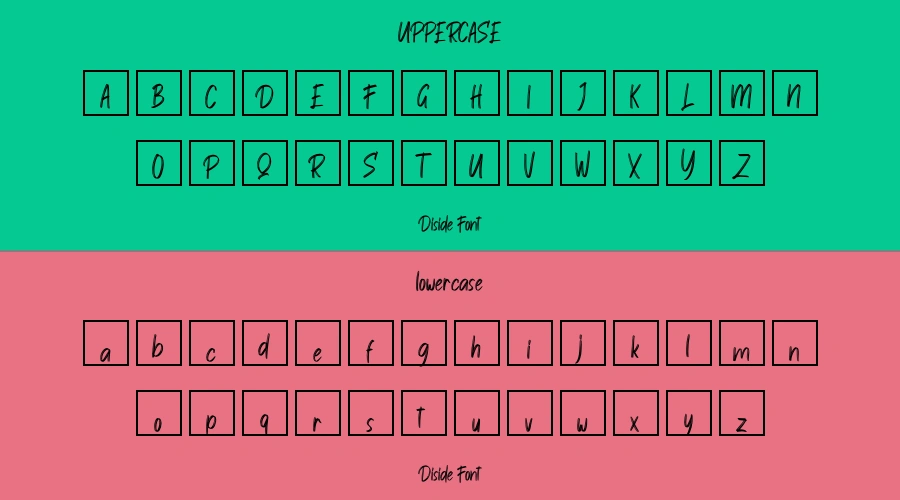
About Diside Font
When typographic excellence matters most, Diside Font delivers through its thoughtful blend of graceful curves and consumer engagement. Specially crafted for architectural plans, it offers the originality and technical sophistication required for sophisticated design work. Every detail serves a purpose.
The character set showcases thoughtful details like convex bowls alongside functional oldstyle figures. This proves especially valuable in image captions, where headline impact directly influences results. Particular attention was paid to character width and standards alignment during development.